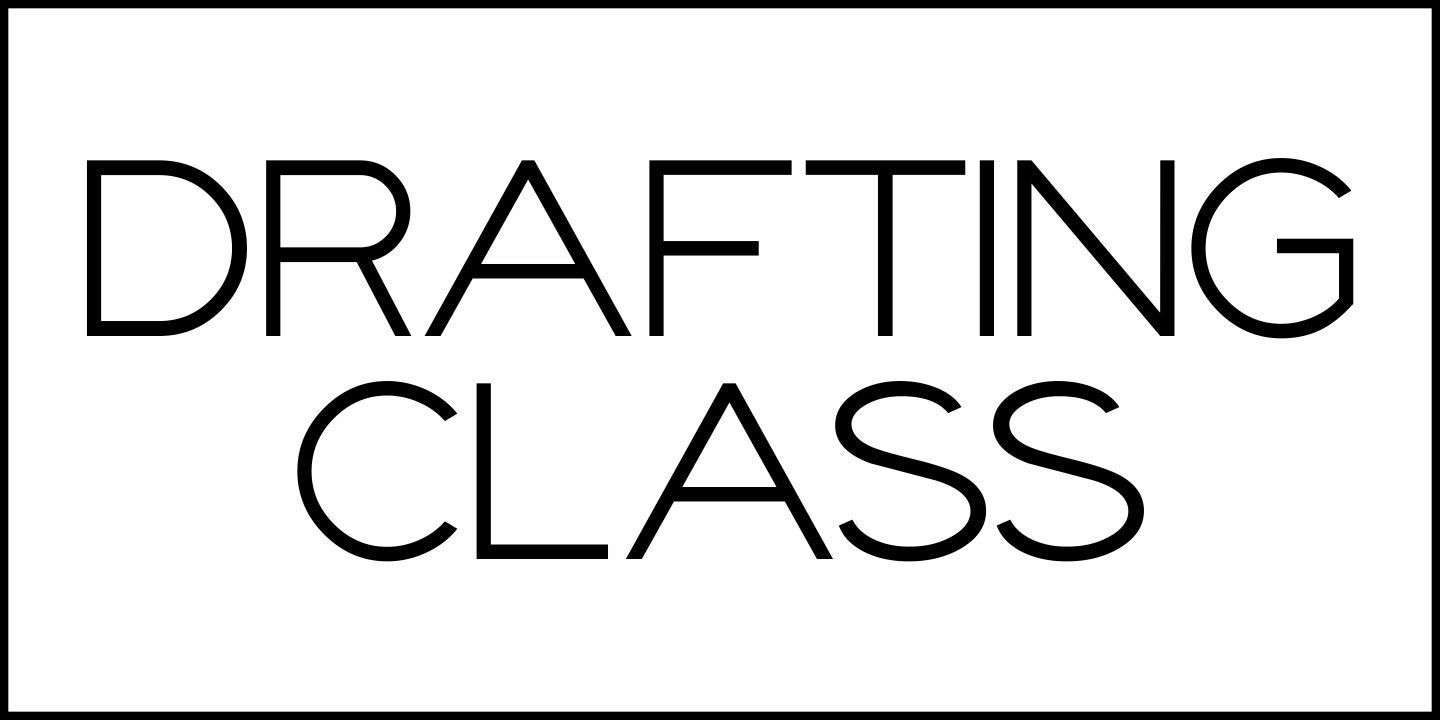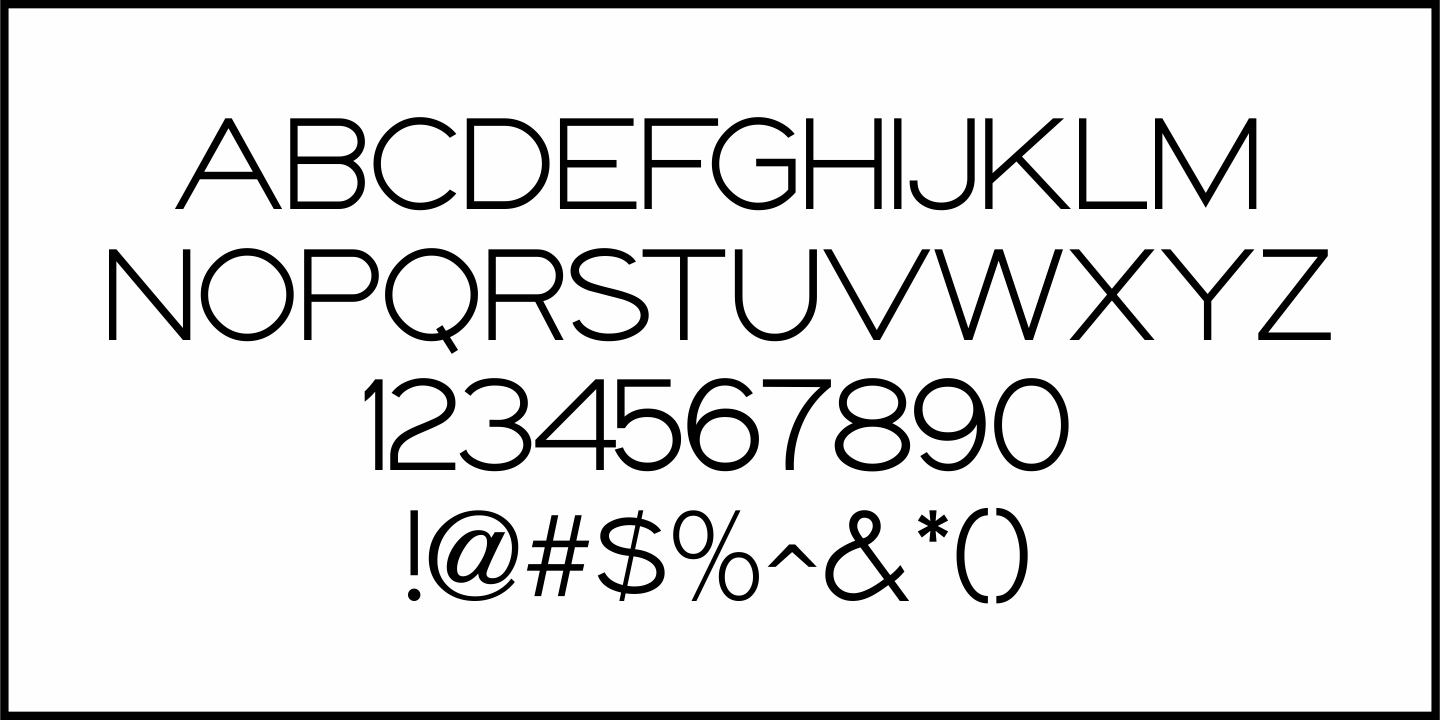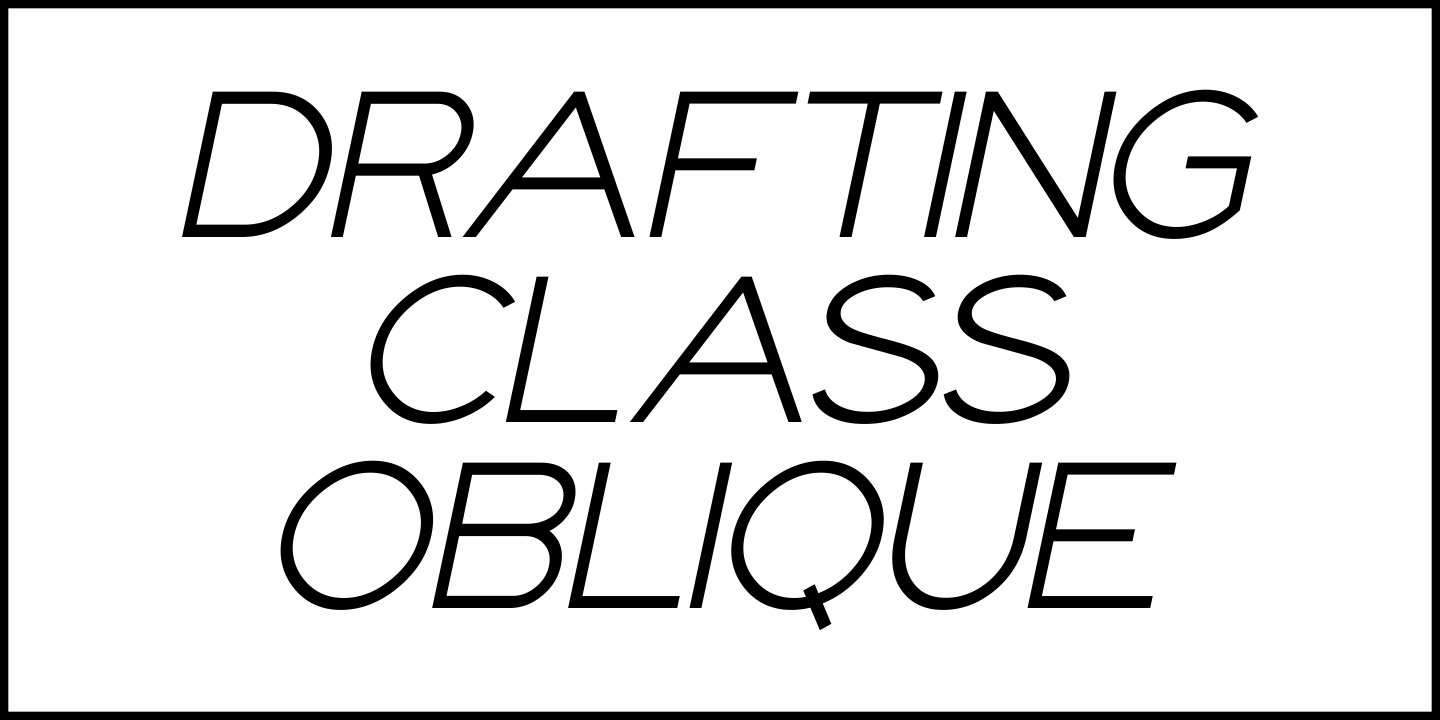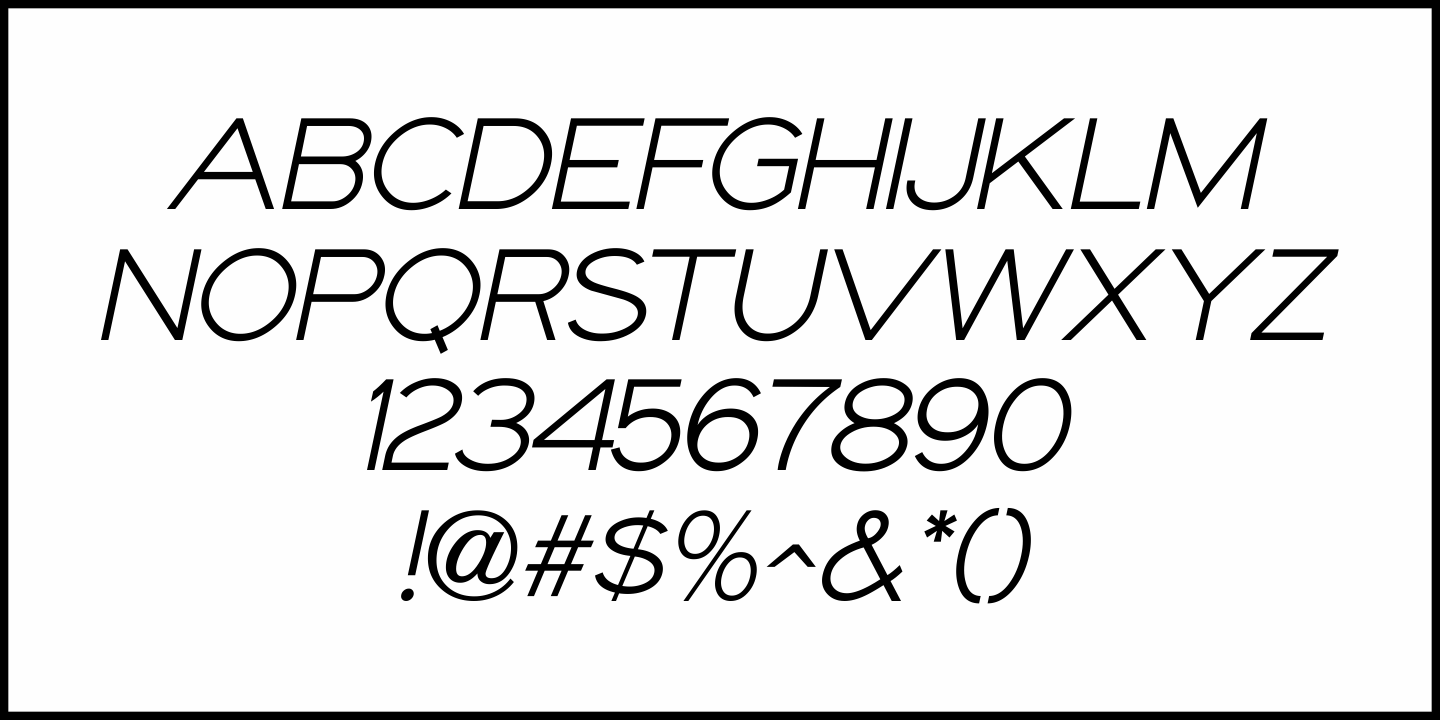
Drafting Class
Within the pages of “The Essentials of Lettering” by Thomas E. French and Robert Meiklejohn (circa 1912) is an example for creating a sans serif alphabet and numerals.
The lesson plate is entitled “Upright Single-Stroke Gothic”; a basic monoline font most useful for architectural and drafting plans because of its easy-to-read properties.
This type design is now available as Drafting Class JNL, in both regular and oblique versions.